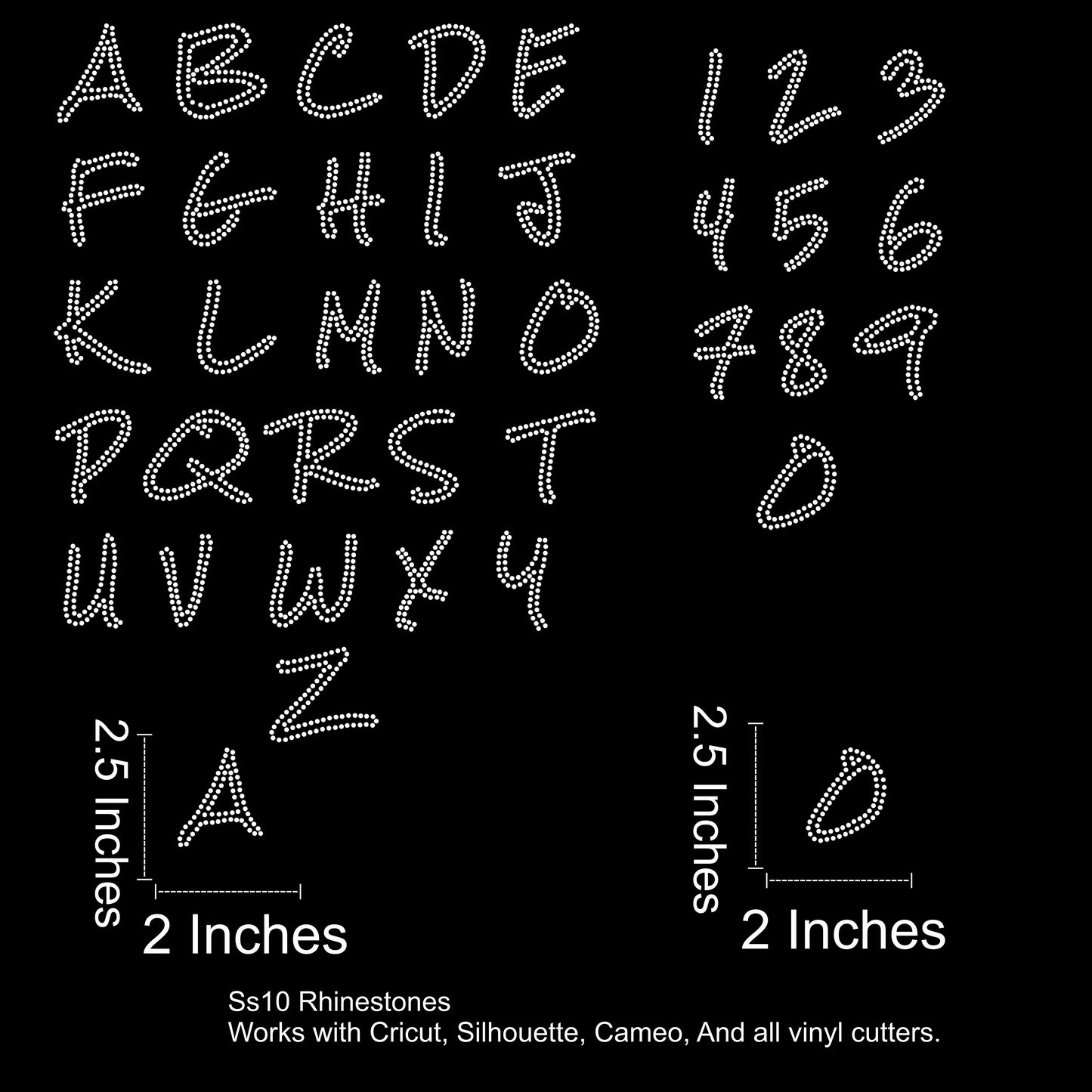
Street Sketch Font Rhinestone SVG File 2.5 inches A-Z & 0-9
Street Sketch – Rhinestone Font SVG (SS10 Size Compatible)
Add some edge to your next design with Street Sketch, a hand-drawn style rhinestone font made for SS10 stones. Bold, raw, and full of personality — this font is perfect for standout graphics, streetwear drops, and expressive custom pieces.
Font Details:
• Capital letters A–Z (approx. 2.5 inches tall)
• Numbers 0–9 (approx. 2.5 inches tall)
• Handwritten marker-style with clean, rhinestone-ready spacing